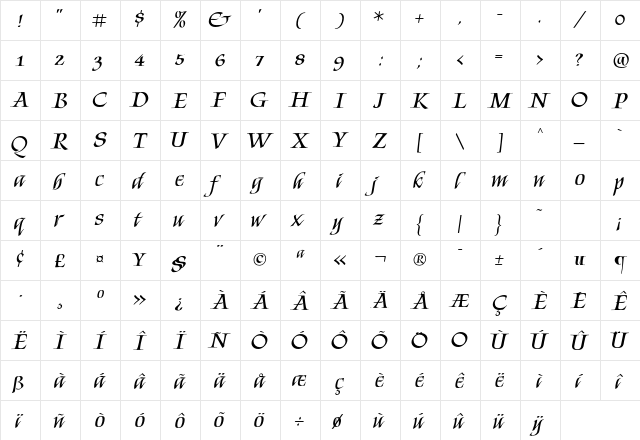
KingsHonor Regular
Design Context for KingsHonor Typeface
KingsHonor is a composed and adaptable typeface that performs quietly and consistently across a wide range of design contexts.